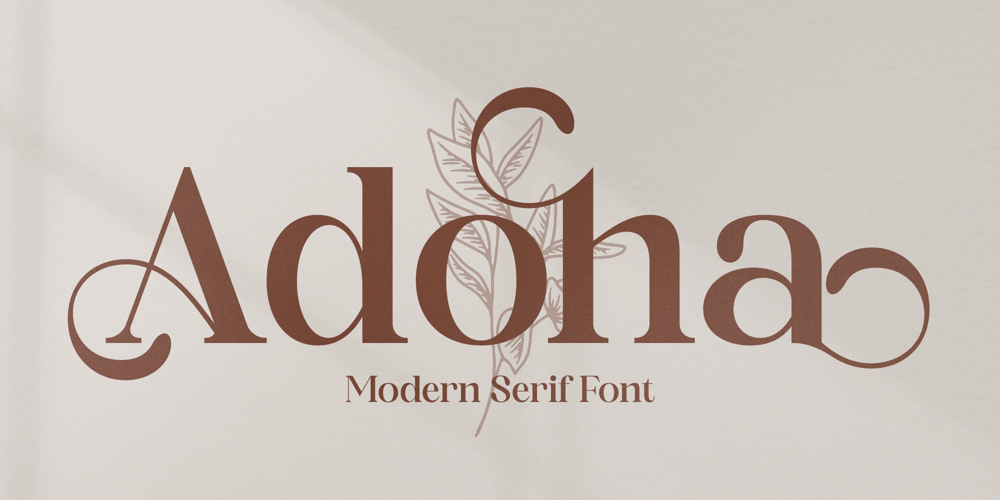
Adoha
Adoha Font Family was designed by Heru Utama Putra and published by Letterena Studios. Adoha contains 2 styles and family package options. Proudly present Adoha Typeface.A modern and classic serif typeface featuring its own unique style & modern look.This typeface is perfect for an elegant & luxury logo, book or movie title design, fashion brand, magazine, clothing, lettering, quote, and so much more.